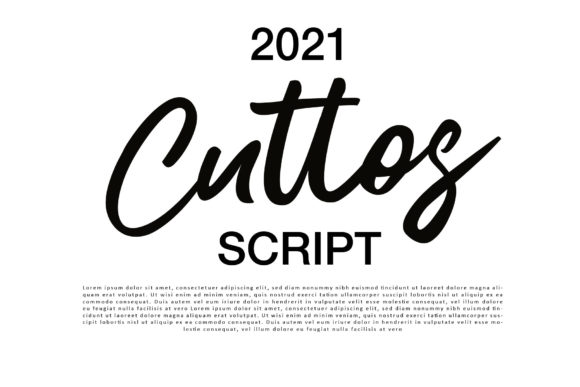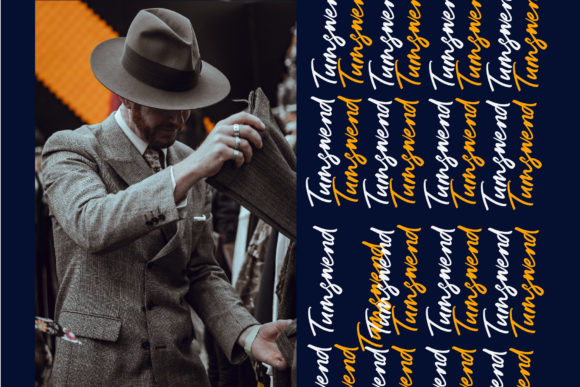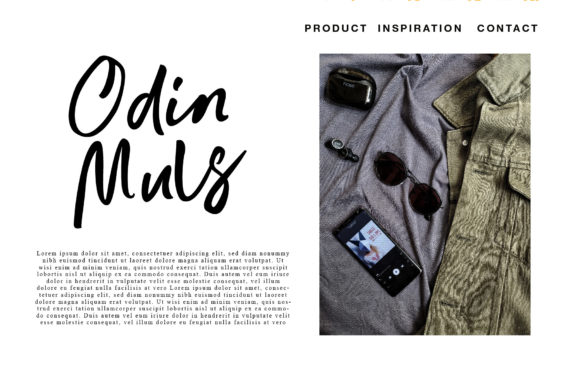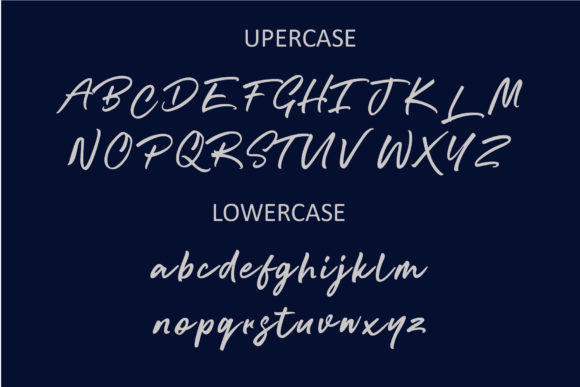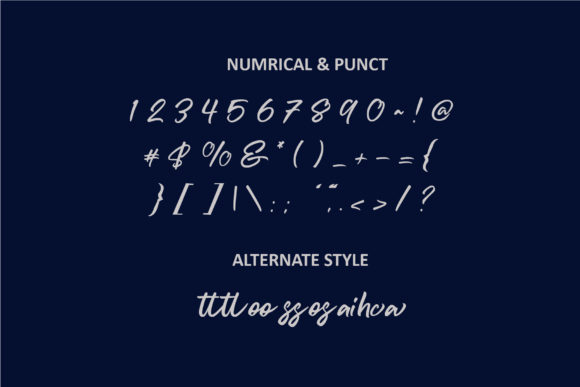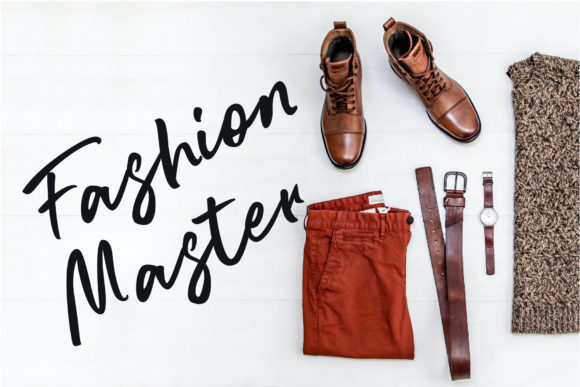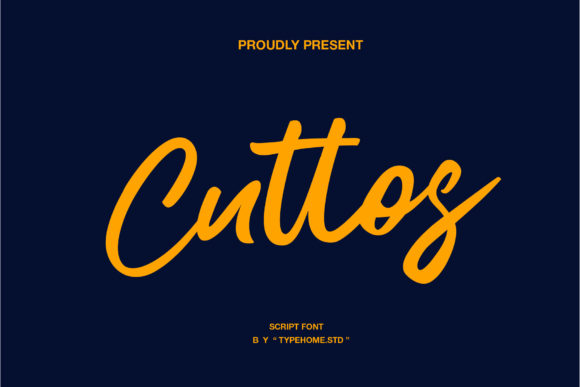
Cuttos Font: Elevate Your Design with a Luxurious Paint Brushed Script
Are you searching for a font that can add a touch of elegance and sophistication to your design projects? Look no further than Cuttos Font, a lovely paint brushed script font that is sure to impress. With its beautiful flow and dancing characters, Cuttos is the perfect choice for designers and crafters looking to add a luxury spark to their work.
What is Cuttos Font?
Cuttos Font is a unique and stylish script font that is hand-crafted to give it a personal and artistic touch. Featuring a beautiful, flowing script, Cuttos is characterized by its dancing characters that seem to come alive on the page. This font is perfect for a variety of design projects, from branding and advertising to packaging and scrapbooking.
Key Features of Cuttos Font
So, what makes Cuttos Font so special? Here are just a few of its key features:
- Lovely paint brushed script: Cuttos Font features a beautiful, hand-painted script that gives it a unique and artistic look.
- Dancing characters: The characters in Cuttos Font seem to dance along the baseline, adding a touch of whimsy and elegance to your designs.
- Luxury feel: Cuttos Font has a luxurious feel that is perfect for high-end design projects.
- High-quality design: Cuttos Font is designed to the highest standards, ensuring that it looks great in any design project.
How to Use Cuttos Font in Your Design Projects
Cuttos Font is a versatile font that can be used in a variety of design projects. Here are just a few ideas to get you started:
- Branding and advertising: Use Cuttos Font to add a touch of elegance and sophistication to your branding and advertising materials.
- Packaging design: Cuttos Font is perfect for packaging design, adding a luxurious touch to your product packaging.
- Scrapbooking: Add a personal touch to your scrapbooking projects with Cuttos Font.
- Stationery design: Use Cuttos Font to create beautiful and elegant stationery, including letterheads, business cards, and more.
Benefits of Using Cuttos Font
So, why should you choose Cuttos Font for your design projects? Here are just a few benefits:
- Adds elegance and sophistication: Cuttos Font adds a touch of elegance and sophistication to any design project.
- Unique and artistic look: Cuttos Font has a unique and artistic look that sets it apart from other fonts.
- High-quality design: Cuttos Font is designed to the highest standards, ensuring that it looks great in any design project.
- Versatile: Cuttos Font can be used in a variety of design projects, from branding and advertising to packaging and scrapbooking.
Tips for Getting the Most Out of Cuttos Font
Here are a few tips for getting the most out of Cuttos Font:
- Use it sparingly: Cuttos Font is a statement font, so use it sparingly to add emphasis to your designs.
- Experiment with different colors: Cuttos Font looks great in a variety of colors, so experiment to find the perfect color for your design.
- Pair it with other fonts: Cuttos Font pairs well with other fonts, so don’t be afraid to experiment with different font combinations.
| Font Name | Cuttos Font |
| Author | typehome.std |
In conclusion, Cuttos Font is a beautiful and elegant paint brushed script font that is perfect for designers and crafters looking to add a luxury spark to their design projects. With its unique and artistic look, high-quality design, and versatility, Cuttos Font is a great choice for a variety of design projects. Whether you’re working on branding and advertising materials, packaging design, scrapbooking, or stationery design, Cuttos Font is sure to impress.